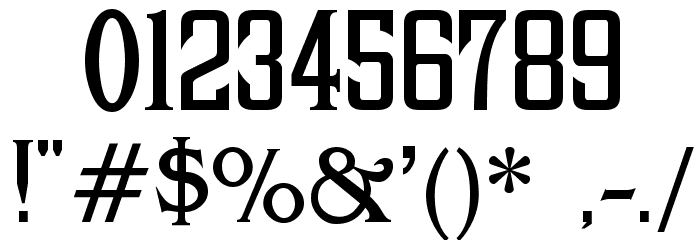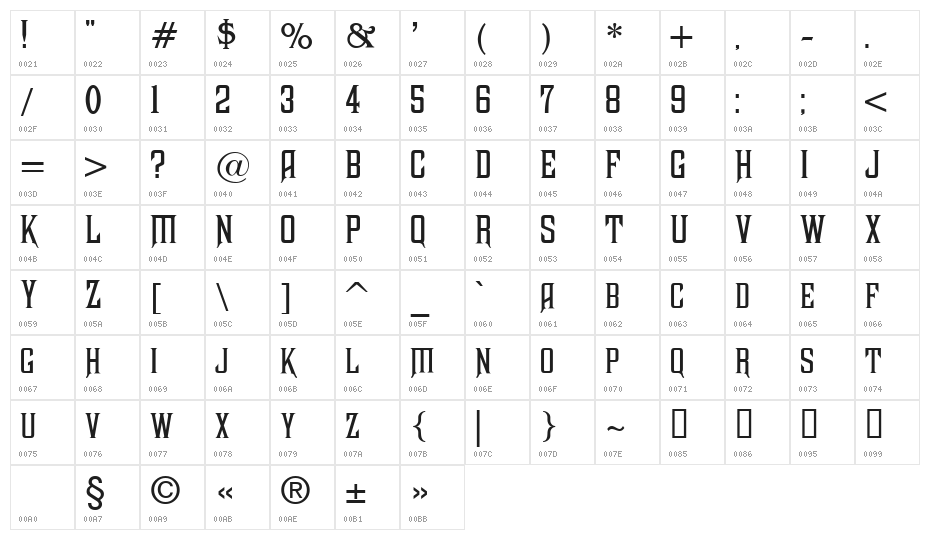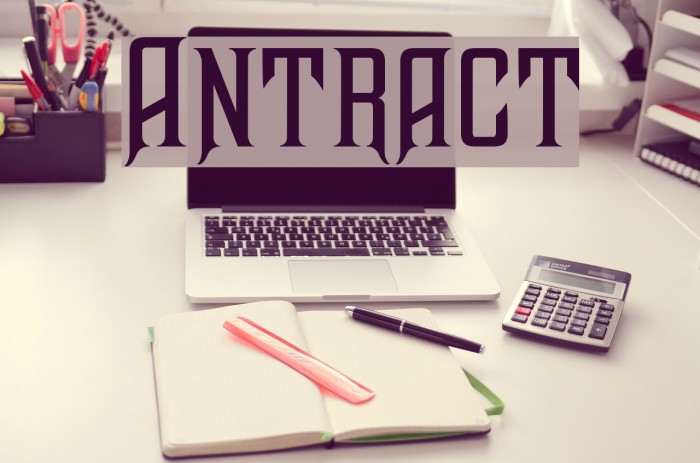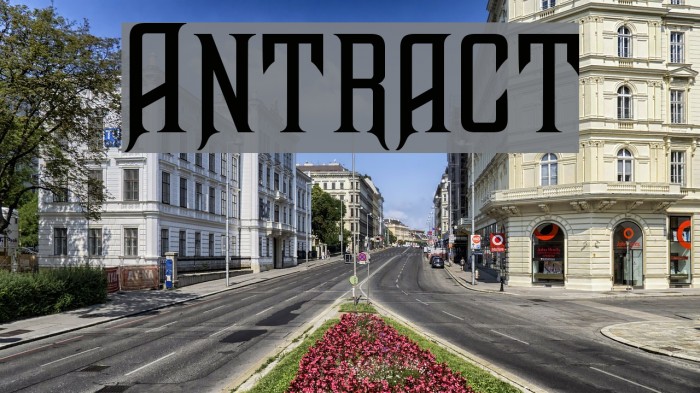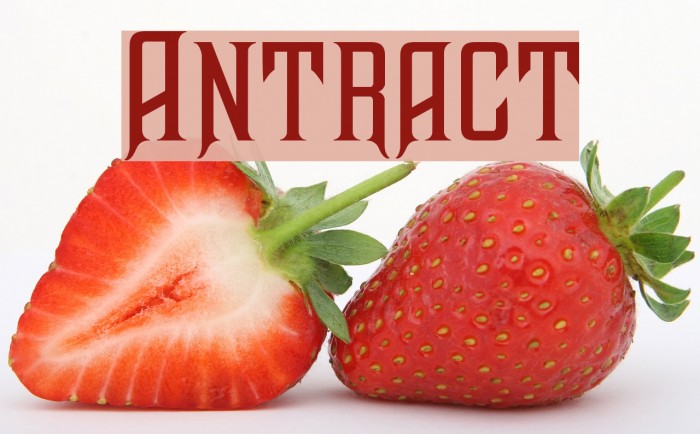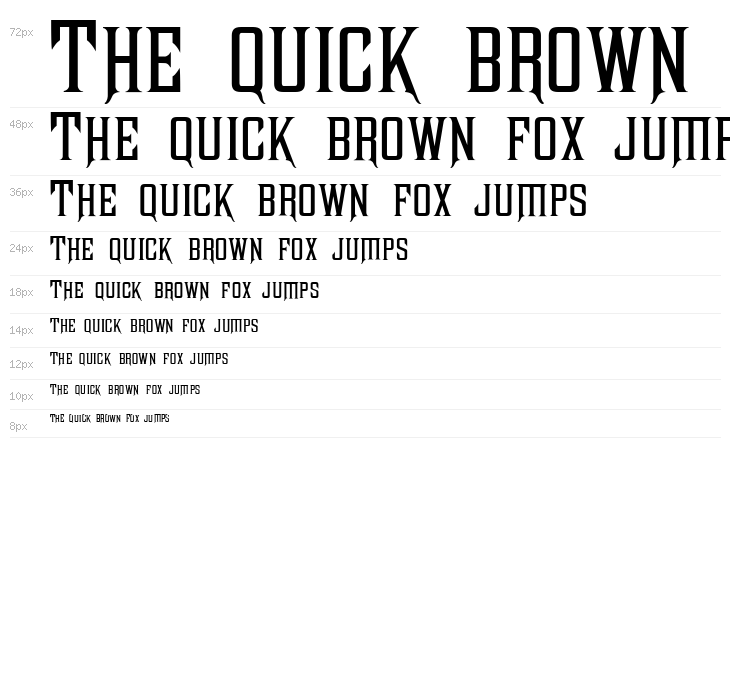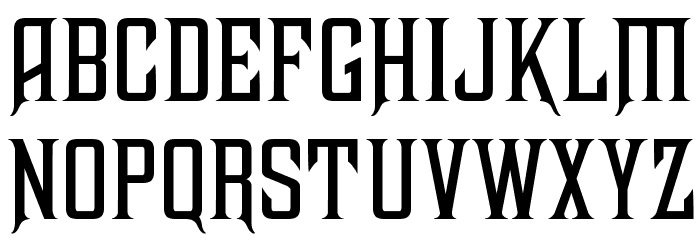
Antract Font
Antract Description
This font features a bold and striking design with sharp, angular serifs that give it a distinct and edgy appearance. The uppercase letters are tall and narrow, with a consistent stroke width that adds to its boldness. The lowercase letters maintain the same angular style, providing a cohesive look across the alphabet. The numerals are equally bold, ensuring they stand out in any context. Special characters are designed with the same attention to detail, making them fit seamlessly with the rest of the font. This font's unique style makes it ideal for projects that require a strong visual impact.
| Proposed Projects | Ideal for branding, posters, album covers, and any design requiring a bold statement. |